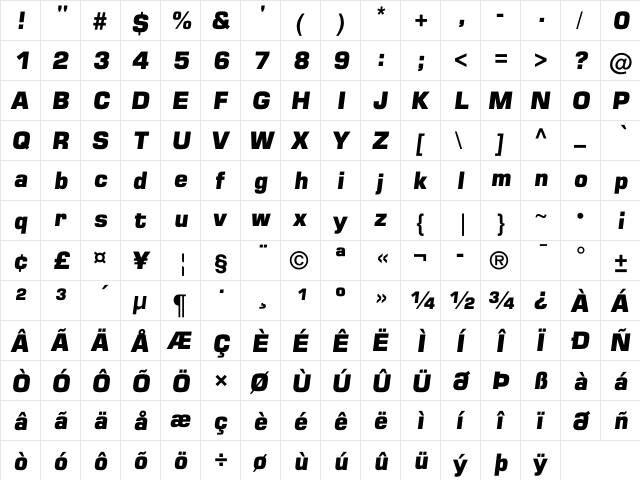
LHF Antique Half Block Italic
| Foundry | Chuck Davis for Letterhead Fonts |
Design Context for LHF Antique Half Block Typeface
LHF Antique Half Block has the warm character of retro typography — evoking diners, record sleeves, and the golden age of print advertising. The dynamic lean of this cut emphasises speed and emphasis in any layout.
Perfect for vintage-inspired branding, retro packaging, nostalgia campaigns, and period-accurate editorial design.
Font Pairing: Combine LHF Antique Half Block with a simple slab or neutral sans — period-accurate companions reinforce the vintage feel without competing for attention.
Pro Tip: Use LHF Antique Half Block for headlines and pull quotes rather than body copy — its personality is best appreciated in short, focused bursts.